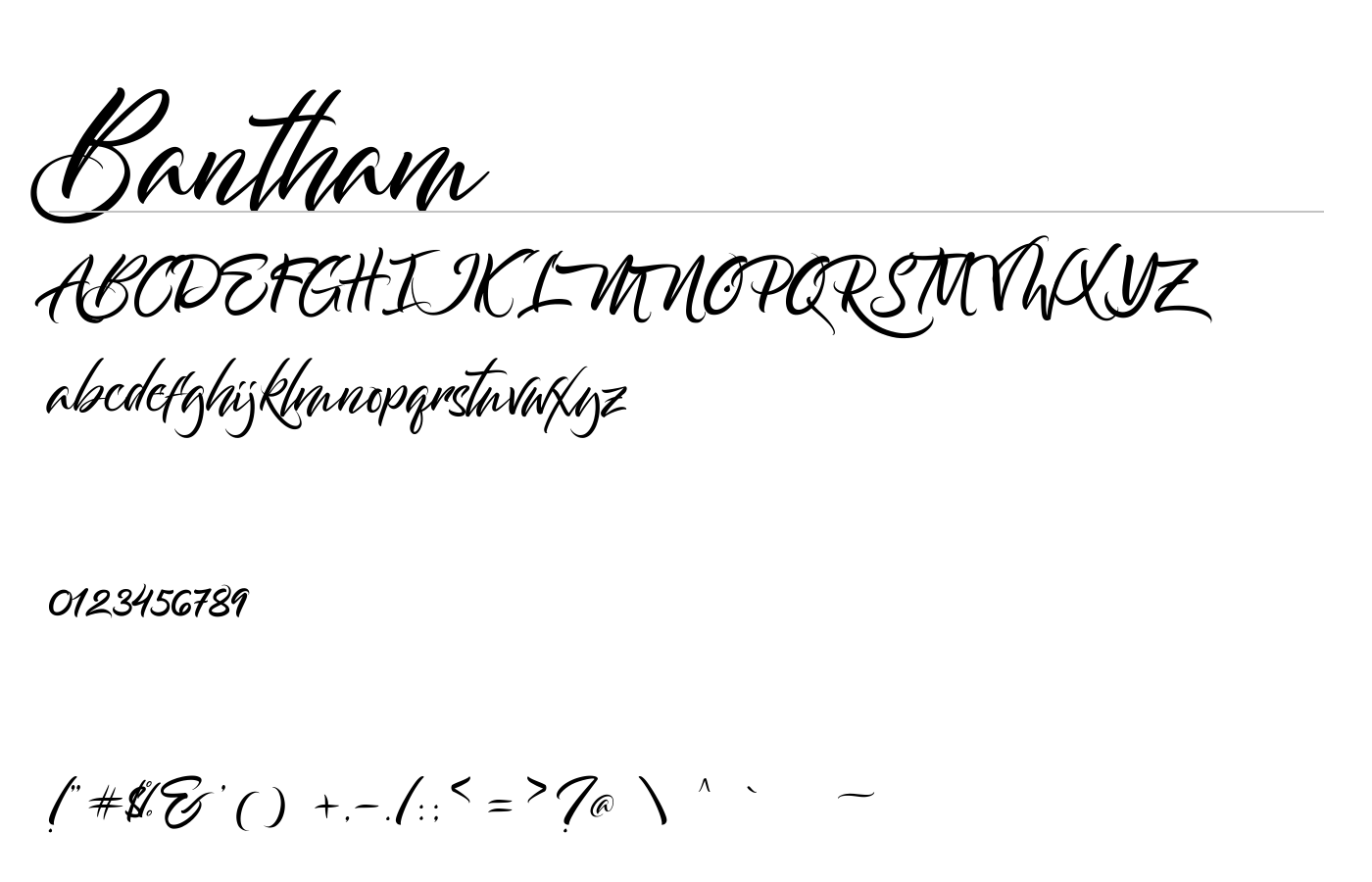
Bantham is an elegant script font with a stylish and fluid calligraphic design, featuring smooth, sweeping strokes and a refined, artistic flair. Its balanced weight and dynamic letterforms make it ideal for adding a sophisticated, personal touch to invitations, branding, and headlines where a sense of grace and creativity is desired. This font works beautifully in fashion, luxury, and creative projects that seek to convey elegance and individuality.
Bantham Font
About Bantham Font
| Font family | Bantham Font |
| Designer | thirtypath |